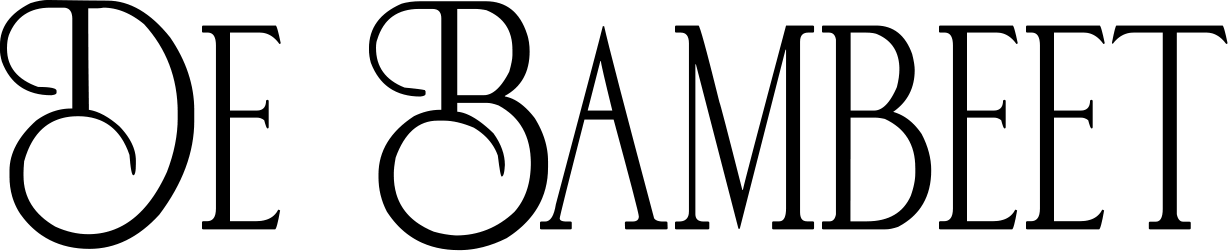
De Bambeet Font
If you’re wondering what makes this particular, serif font special; the answer would be the fashionable look and the classical feel it adds to your typography. De Bambeet has slim bold characters that have unique edges, that are professional and the results of utilizing this font will be a posh design.
De Bambeet offers outstanding letterforms that are capital alphabets, numbers, and punctuation without lowercase letters. This antique serif font is best for fashion banners and posters, magazines and products or clothing, and more.